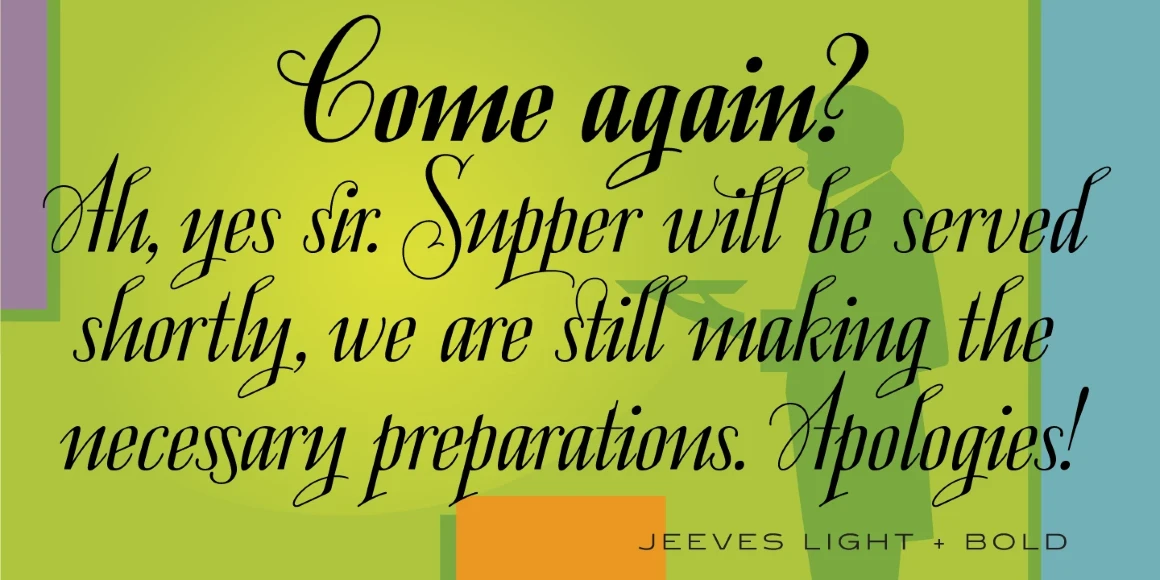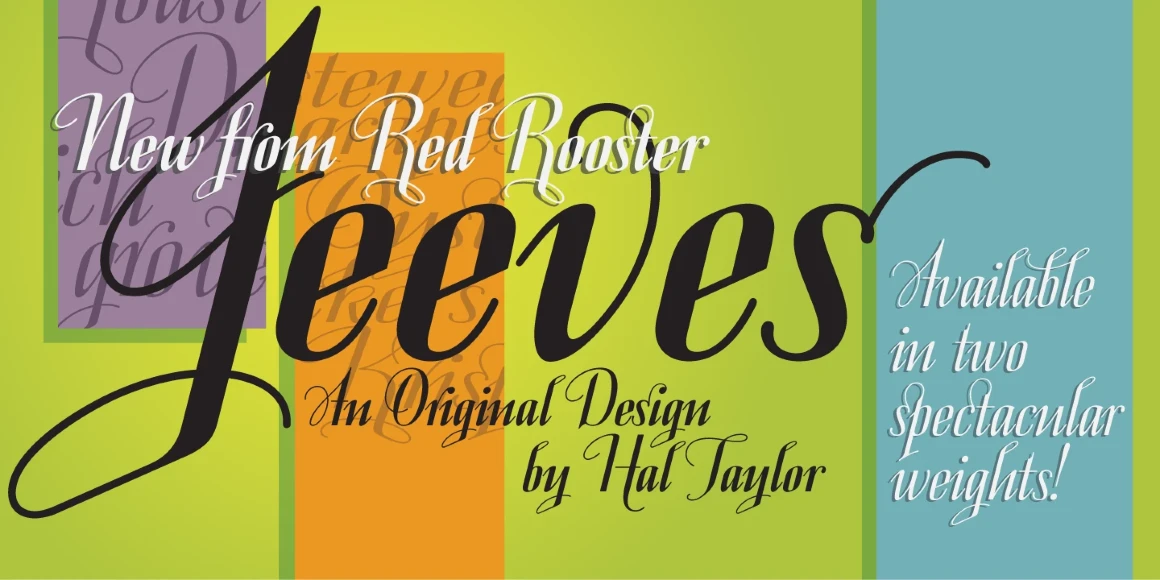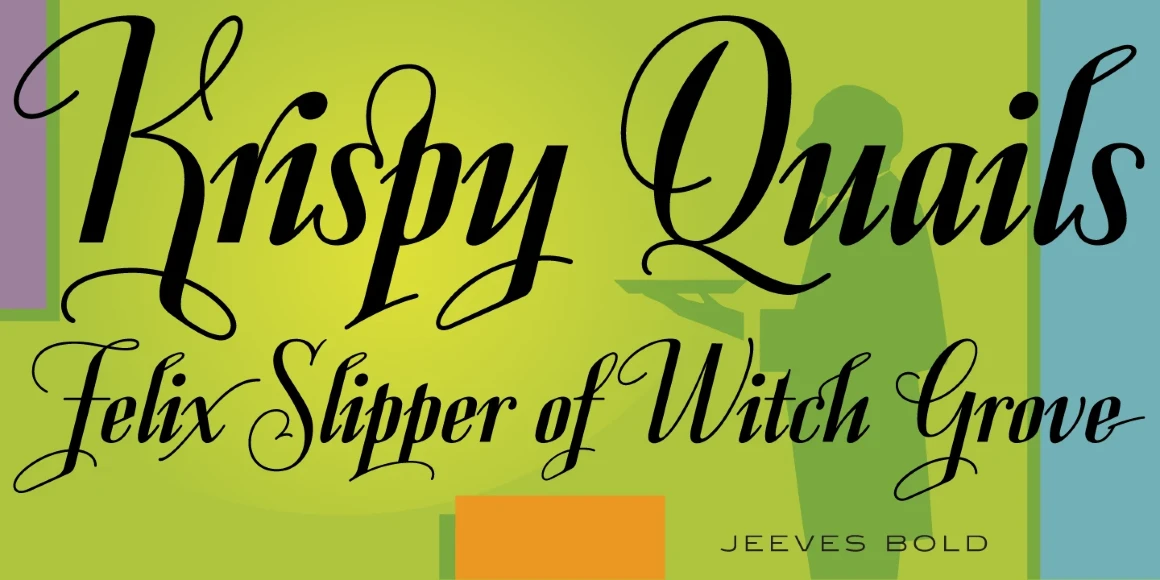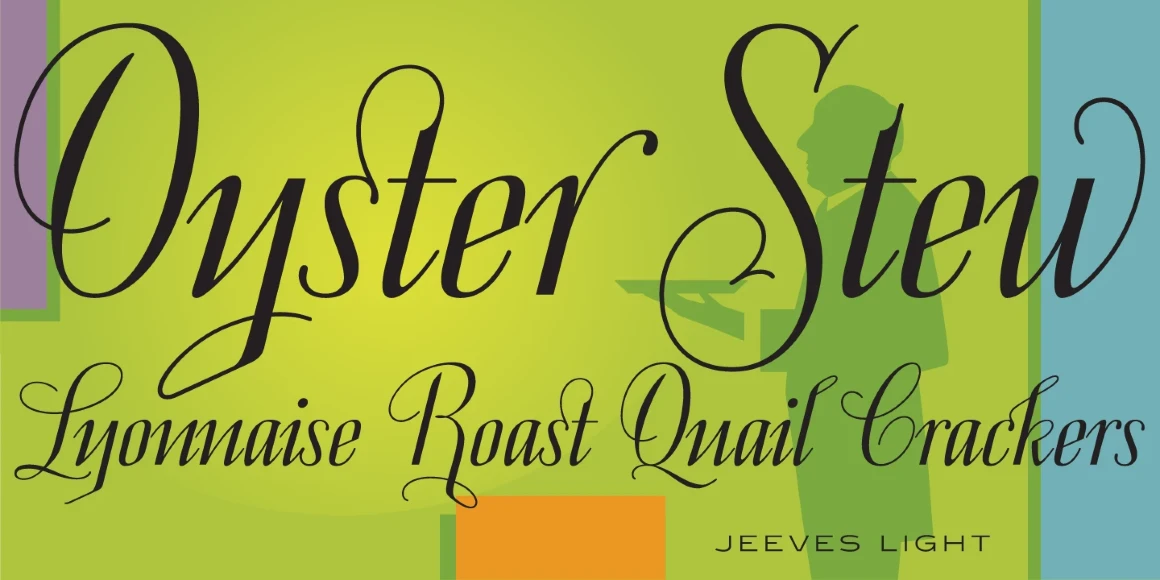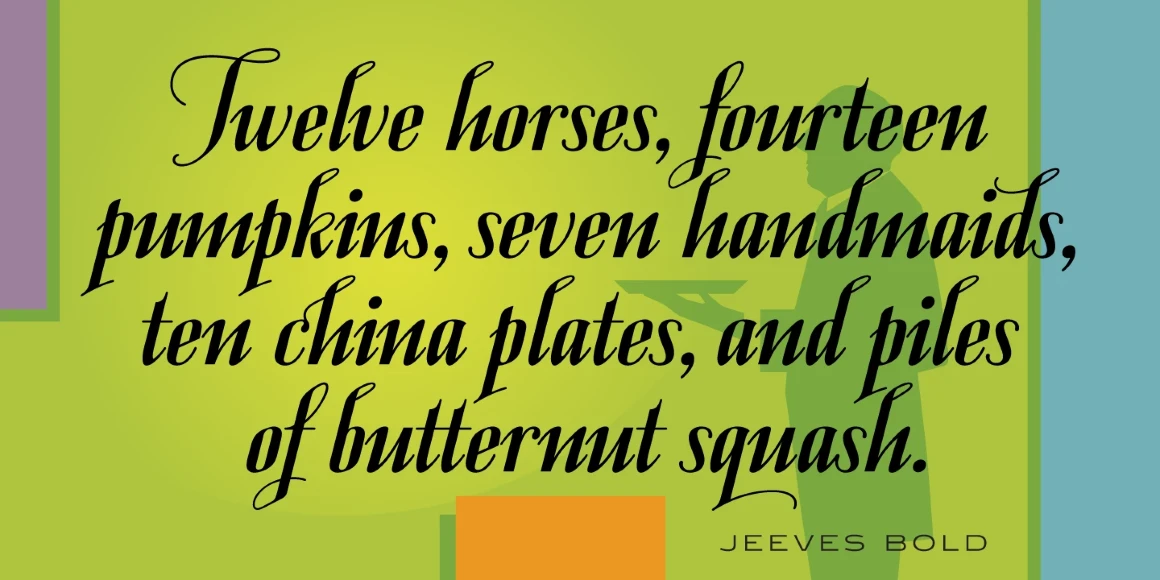
Jeeves
Jeeves Light
Jeeves Bold
Jeeves is a script font family designed by Hal Taylor. It was redrawn and produced by Steve Jackaman (ITF) and Ashley Muir in 2009. Taylor writes of his inspiration, saying: “The inspiration for Jeeves came from Leslie Carbarga’s wonderful book ‘LETTERHEADS, One Hundred Years of Great Design, 1850-1950.’ It was based on a secondary type usage for the letterhead for Sutherland in New York. The rest of the letterhead had features that were more typical of the Art Deco period, but this script added a touch of timeless elegance. The font is loaded with a plethora of extra glyphs, ligature characters and OpenType features.”